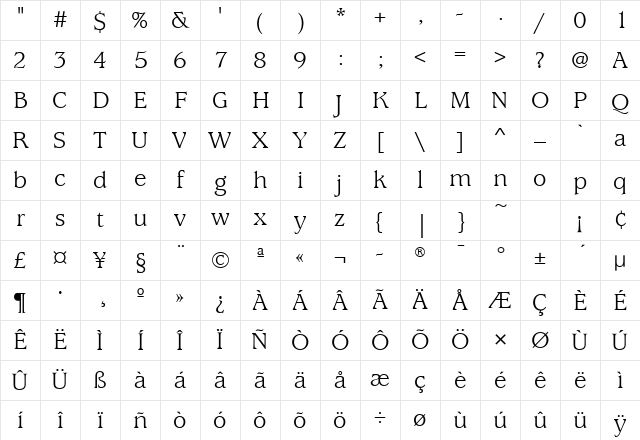
Complete UsherwoodITC Book glyph index. Displaying only characters natively supported by UsherwoodITC Book font.
UsherwoodITC echoes the hand-painted signage and woodblock typography of the American frontier, with a warm, rugged personality.
Font Pairing: Combine UsherwoodITC with a simple slab or neutral sans - period-accurate companions reinforce the vintage feel without competing for attention.
Pro Tip: Use UsherwoodITC for short, impactful bursts of text - it shines in poster headlines and product names rather than extended copy.